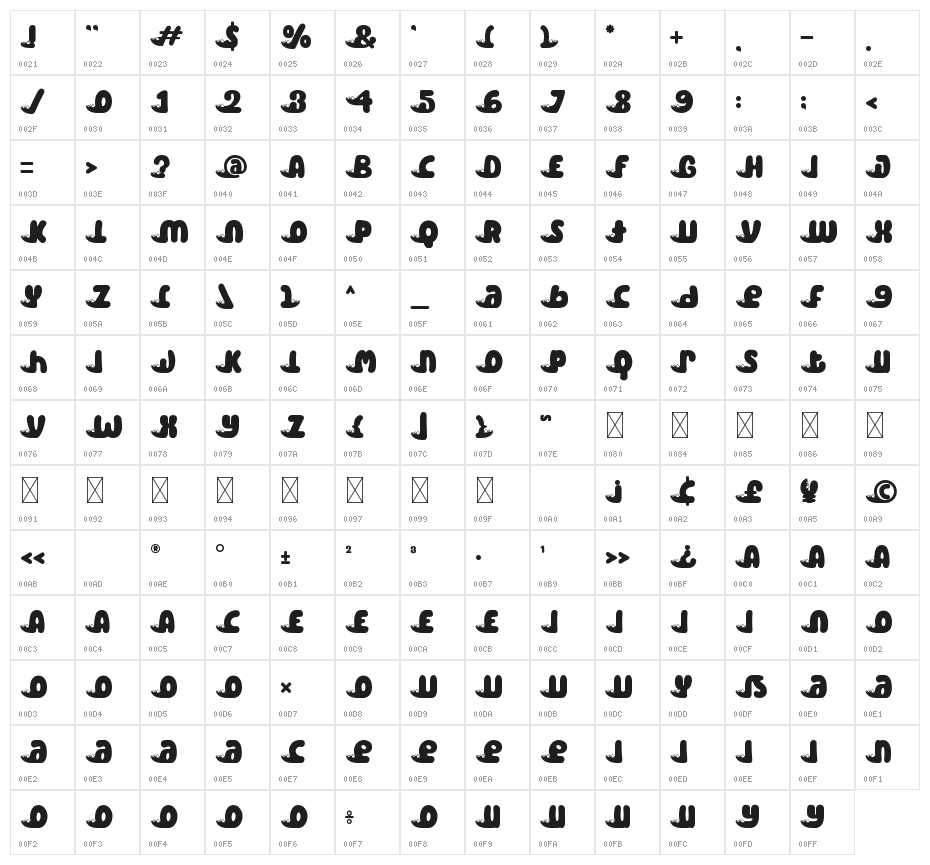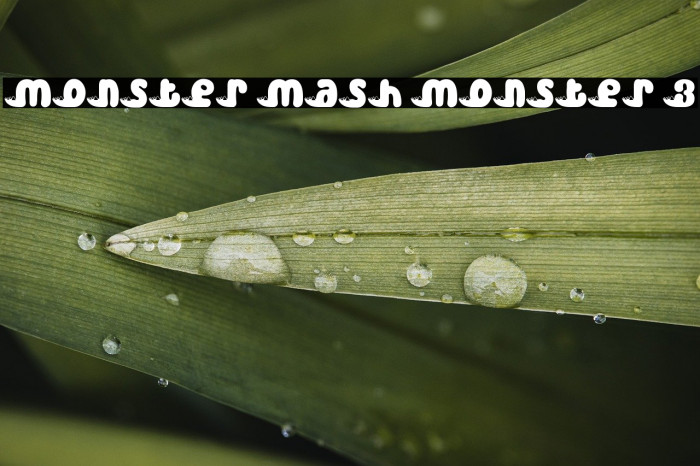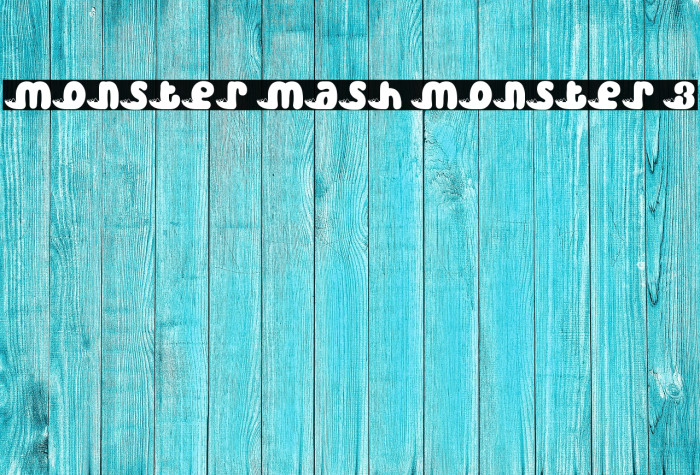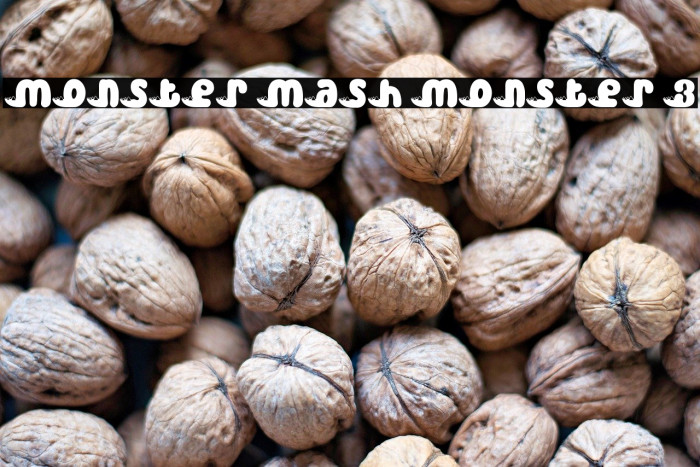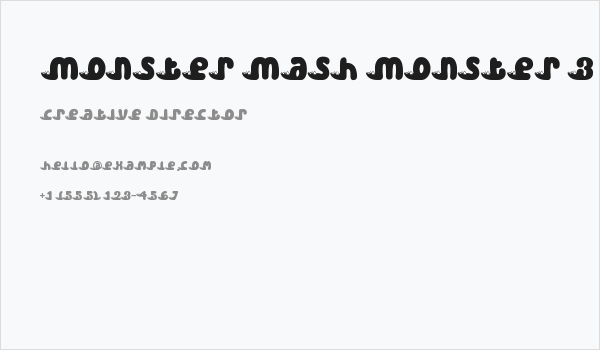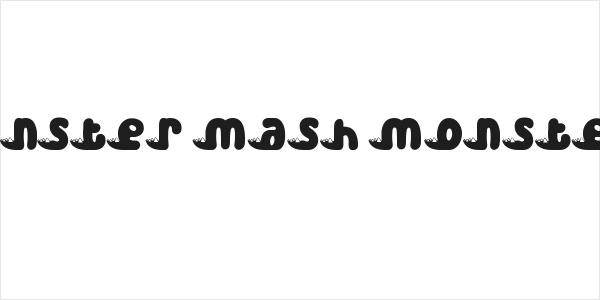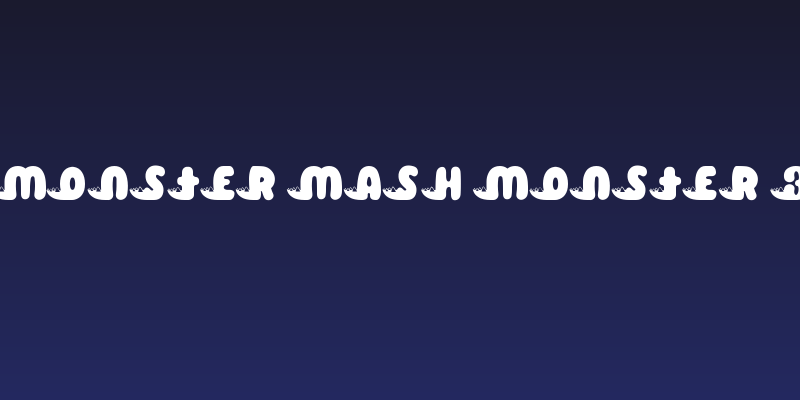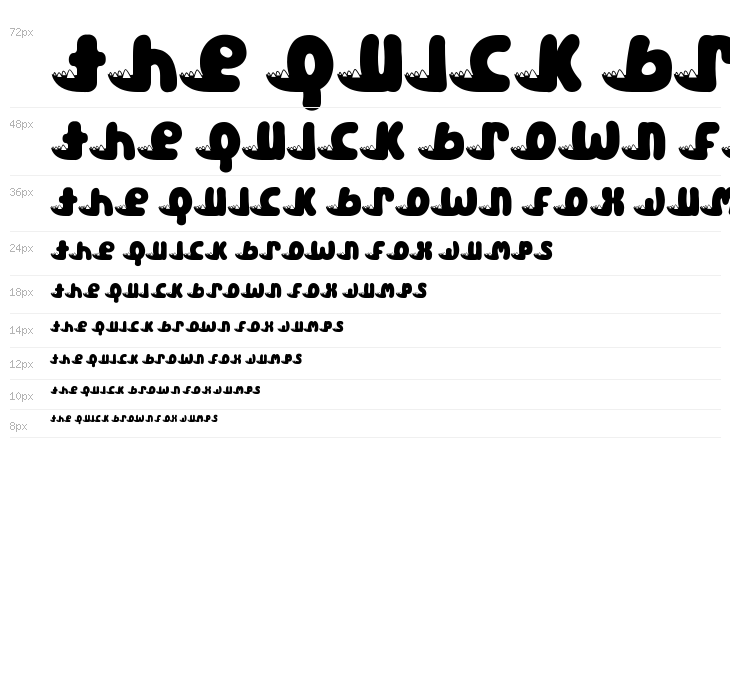
Monster Mash Monster 3 Font
Monster Mash Monster 3 Description
This playful and whimsical font features bold, rounded characters with a unique monster-themed design. Each letter is adorned with small, cartoonish eyes and teeth, giving it a fun and quirky appearance. The font maintains a consistent thickness throughout, with smooth curves and a slightly condensed form. The characters are tightly spaced, enhancing the cohesive look of the text. This font is perfect for projects that require a touch of humor and creativity, such as children's books, Halloween-themed materials, or playful branding.
| Proposed Projects | Ideal for children's books, Halloween decorations, playful branding, and creative posters. |